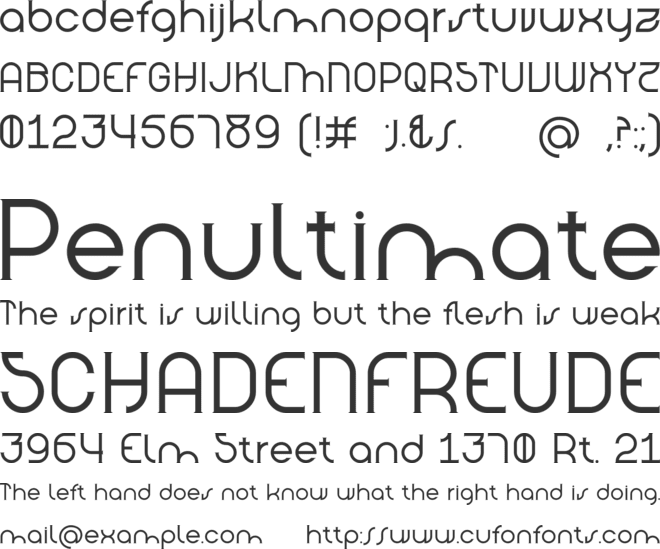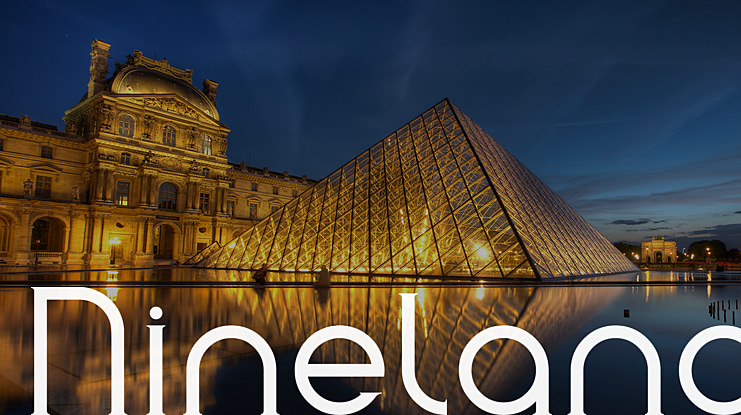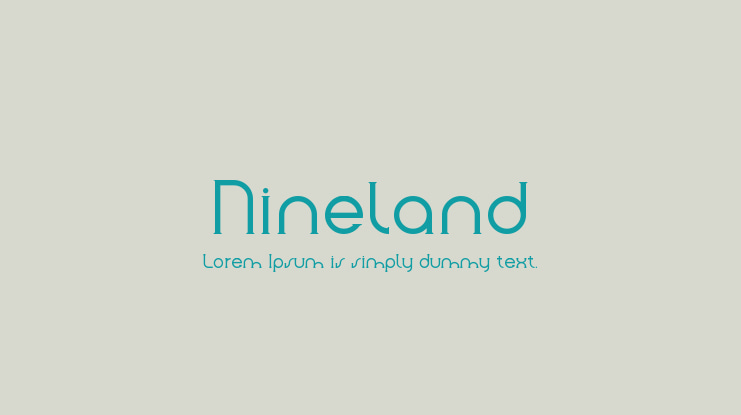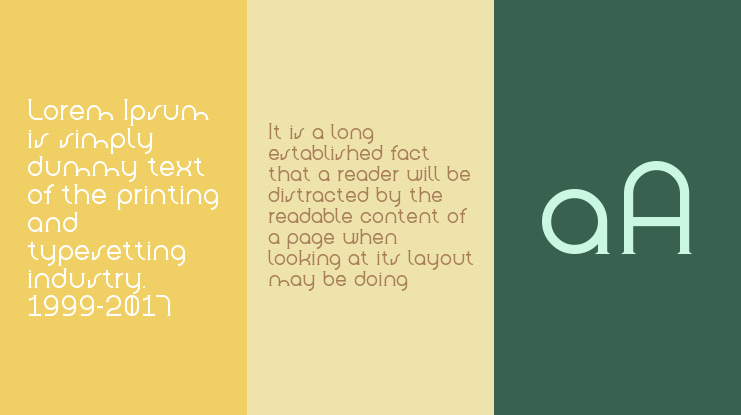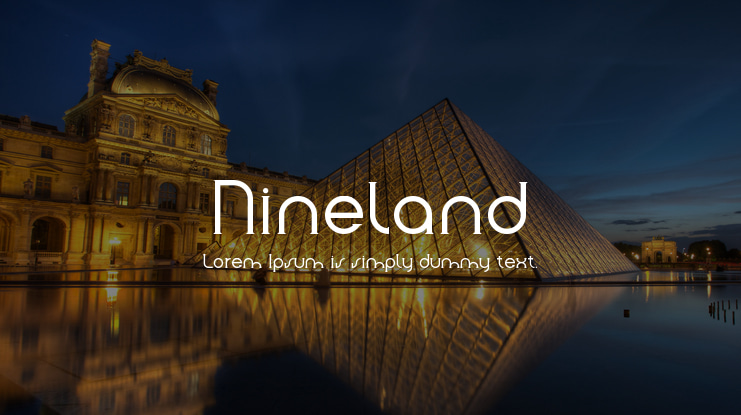
Nineland Font
ineland Serif is a simple and unique font belonging to the serif family. has a rounded and geometric shape on each side giving the impression of neat and character. has a combination of uppercase and lowercase letters, numbers, and similar punctuation makes this font always balanced for use in various projects, branding, and products such as elegant logos, headlines, posters, T-shirts, cafes, salons, product packaging, etc. Make your design ideas more inspirational and awesome right now!
Nineland font preview